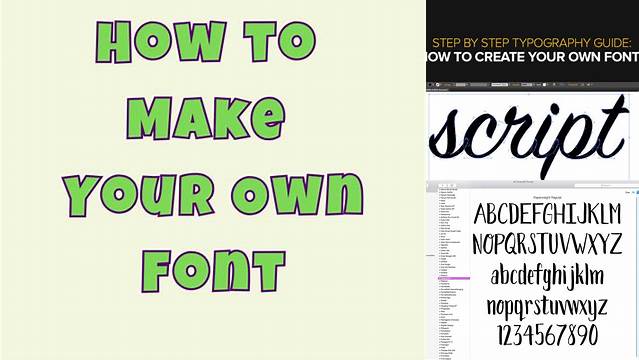
Create Your Own Font Free Online: Design Guide
Introduction: Unleash Your Creativity with Free Online Font Makers
Hey guys! Ever thought about how cool it would be to design your own font? Imagine typing away in a font that's completely unique to you, reflecting your personality and style. Well, guess what? You can actually make your own font free online! Forget about complicated software and hefty price tags; the internet is brimming with fantastic tools that let you unleash your inner typographer without spending a dime. In this comprehensive guide, we'll walk you through everything you need to know to create your own font, from the initial concept to the final downloadable file. We'll explore the best free online font makers, discuss different font styles and techniques, and provide tips and tricks to help you craft a font that truly stands out. Whether you're a seasoned designer or a complete newbie, this guide will empower you to bring your font dreams to life. So, grab your creative hat and let's dive into the exciting world of font design!
Creating a font might seem daunting at first, but trust me, it's an incredibly rewarding process. It's not just about making letters; it's about expressing yourself through typography, conveying emotions, and adding a personal touch to your projects. Think about the fonts you see every day – the elegant curves of a script font, the bold presence of a sans-serif, the quirky charm of a handwritten typeface. Each font has its own personality, and now you have the chance to create your own. With the rise of free online font editors, the barrier to entry has been lowered significantly. You don't need to be a professional graphic designer or invest in expensive software to get started. These online tools provide intuitive interfaces, helpful tutorials, and a wide range of features to guide you through the font-making process. From drawing individual glyphs to adjusting spacing and kerning, you'll have all the control you need to craft a font that's perfect for your needs. So, are you ready to embark on this creative journey? Let's explore the tools and techniques that will help you make your own font free online and leave your unique mark on the world of typography.
The beauty of creating your own font lies in its versatility. You can use it for a wide range of projects, from personal stationery and invitations to branding materials and website designs. Imagine your logo rendered in your own custom typeface, instantly adding a touch of authenticity and personality to your brand. Or picture your blog posts adorned with headings in a font that perfectly captures your writing style. The possibilities are endless! And the best part is, you don't have to be limited by the existing font libraries. You can create a font that's truly unique, reflecting your individual aesthetic and the specific needs of your projects. Whether you're aiming for a clean and modern sans-serif, a whimsical and playful script, or a bold and impactful display font, the power is in your hands. With the free online font makers we'll be discussing, you can experiment with different styles, refine your designs, and preview your font in various contexts. So, get inspired, let your creativity flow, and prepare to be amazed by what you can achieve. Let's start exploring the exciting world of font creation and discover how you can make your own font free online!
Choosing the Right Tool: Top Free Online Font Makers
Okay, so you're stoked about creating your own font, but where do you even begin? Don't worry, I got you! The first step is choosing the right tool. Luckily, there are several awesome free online font makers available, each with its own strengths and features. Let's take a look at some of the top contenders:
Calligraphr: This is a super cool option if you love the idea of digitizing your own handwriting. You simply print out a template, fill it in with your letters and symbols, scan it back in, and Calligraphr will turn your handwriting into a font! It's perfect for creating personal and unique handwritten fonts. The free version allows you to create up to 75 characters, which is a great way to get started and explore the process. You can also customize various aspects of your font, such as the thickness of the lines and the spacing between letters. If you're looking for a way to add a personal touch to your designs or create a truly unique signature font, Calligraphr is definitely worth checking out.
FontStruct: If you're into geometric shapes and modular design, FontStruct is your jam! This tool lets you build fonts using a grid-based system, making it easy to create clean, modern, and even pixelated fonts. It's like playing with digital building blocks! FontStruct is particularly well-suited for creating display fonts, logos, and other graphic elements where a distinct and geometric look is desired. The online editor is intuitive and easy to use, even for beginners. You can choose from a variety of pre-designed shapes or create your own custom elements. The community aspect of FontStruct is also a huge plus. You can browse and download fonts created by other users, get inspiration for your own designs, and even collaborate with other font enthusiasts. So, if you're looking for a fun and creative way to make your own font free online, FontStruct is an excellent choice.
BirdFont: For a more traditional font editing experience, BirdFont is a fantastic option. It's a free and open-source font editor that you can download and use offline. It offers a wide range of features for drawing and editing glyphs, adjusting spacing and kerning, and exporting your font in various formats. BirdFont is a great choice for those who want more control over the font-making process and are comfortable with a more professional-grade tool. While it might have a slightly steeper learning curve compared to the other options, the depth of features and the ability to work offline make it a powerful tool for serious font designers. The BirdFont community is also active and supportive, offering resources and tutorials to help you get started. So, if you're ready to dive deep into the world of font design and make your own font free online, BirdFont is definitely worth exploring.
Choosing the right tool really depends on your personal style and what you want to achieve. Do you want to digitize your handwriting? Go for Calligraphr. Are you into geometric designs? FontStruct is your best bet. Do you prefer a traditional font editor with a wide range of features? BirdFont is the way to go. Experiment with different tools and see which one clicks with you. The most important thing is to have fun and let your creativity flow! Once you've chosen your tool, it's time to start thinking about the style of font you want to create.
Defining Your Font Style: Finding Your Typographic Voice
So, you've picked your weapon of choice (aka your awesome free online font maker), now comes the fun part: figuring out what kind of font you want to create! This is where your creativity really shines, so let's talk about different font styles and how to find your own typographic voice. The style of your font will determine its overall personality and how it will be perceived by others. Think about the message you want to convey and the aesthetic you're aiming for. Are you going for something elegant and sophisticated? Bold and impactful? Playful and quirky? The possibilities are endless!
Consider the common font classifications to get started: Serif, Sans-serif, Script, and Display.
- Serif fonts are characterized by the small strokes or